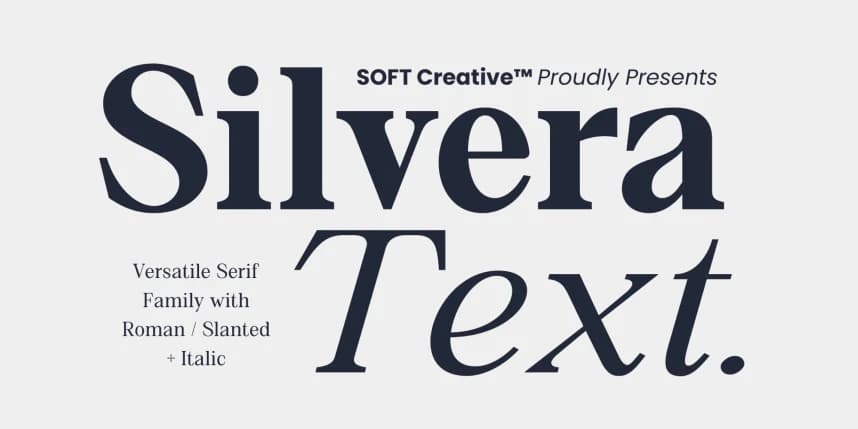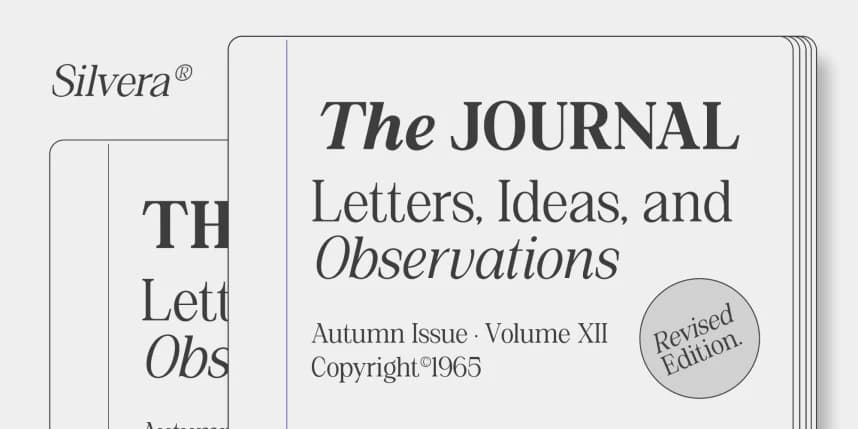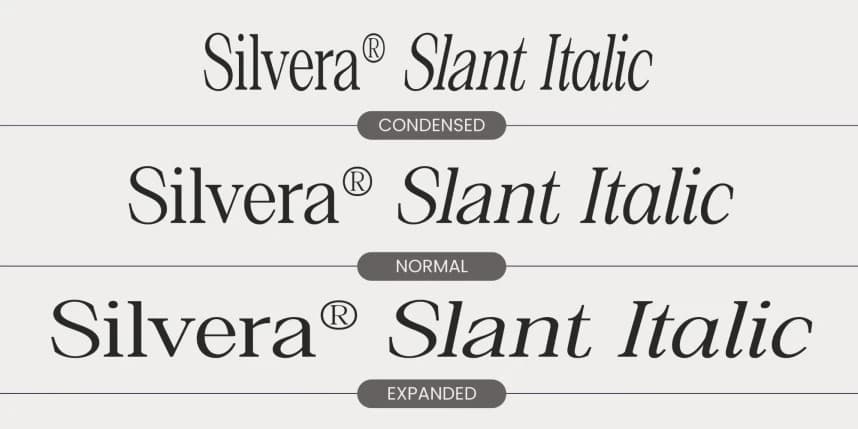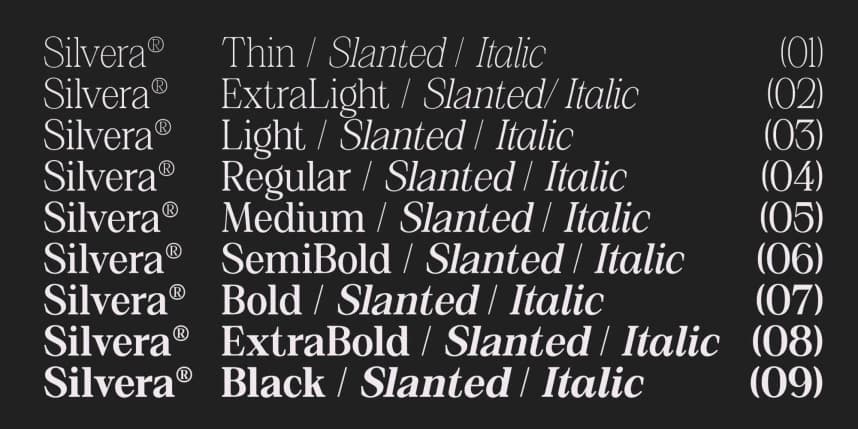
Silvera Text Font
Silvera Text Font is a refined serif typeface designed for clarity, elegance, and versatility. Built with balanced proportions and carefully crafted serif details, it offers a timeless typographic voice that works beautifully across both modern and classic design contexts.